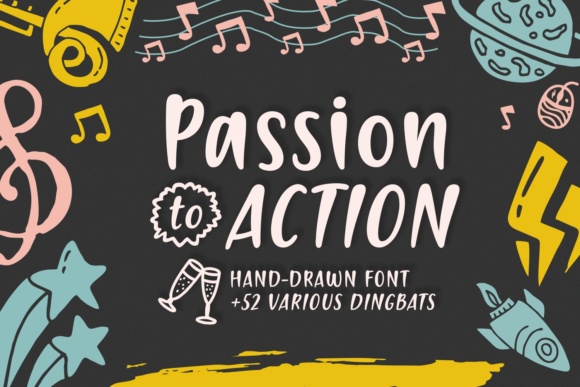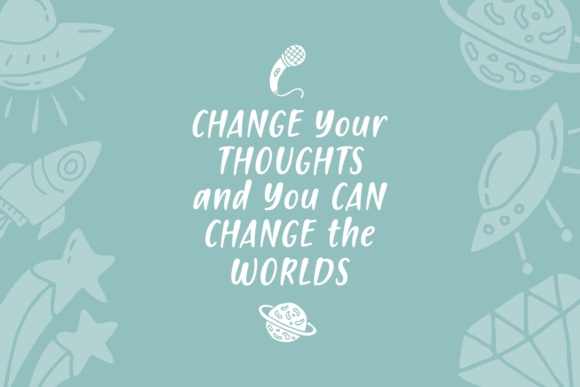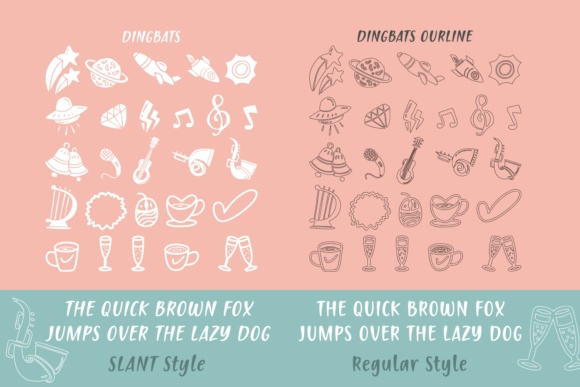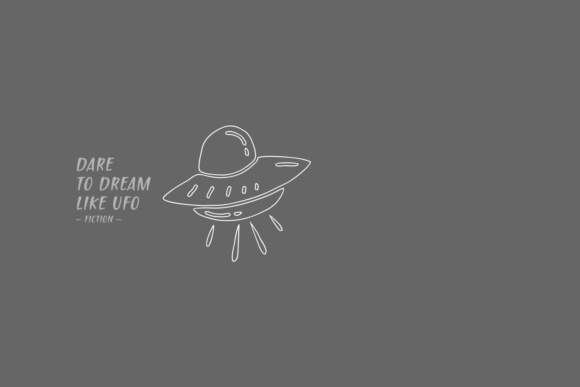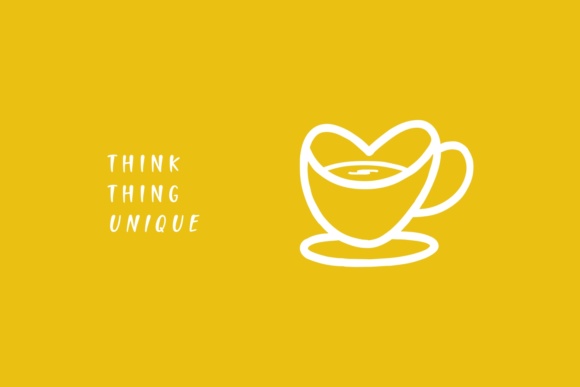
Passion to Action Font
About Passion to Action Font
The Passion to Action is a fun hand drawn font with 52 cute dingbats to spice up your design. The letters are clean with a good readability. From stars to music notes and from diamonds to champagne glasses, passion to action is the perfect font to add to your library.